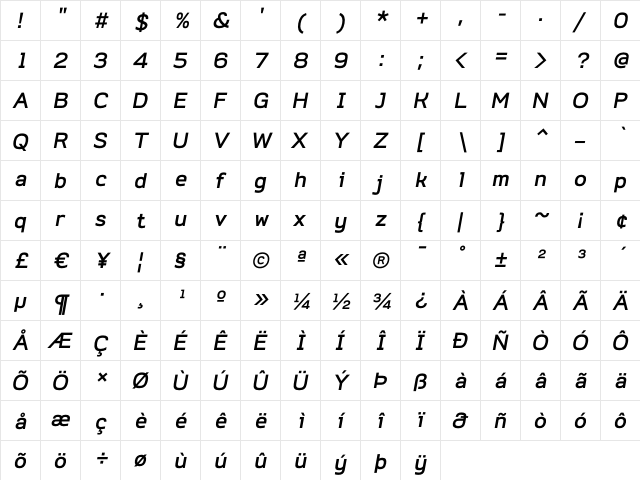
Do Gothic Bold Oblique
| Foundry | Anuthin Wongsunkakon |
| Designer | Anuthin Wongsunkakon |
Design Context for Do Gothic Typeface
Do Gothic takes a clean, functional approach — its unadorned letterforms prioritise legibility and work reliably across screen and print environments. Its italic angle brings a sense of urgency and motion to the letterforms. Its bold stroke weight gives it real presence on the page.
Well-suited to navigation labels, product packaging, and anywhere legibility at scale is essential.
Font Pairing: Use Do Gothic for headlines alongside a lighter-weight sans or serif for body copy to establish clear visual hierarchy.
Pro Tip: Use Do Gothic for UI labels, navigation, and short-form body copy where clean legibility is the priority.